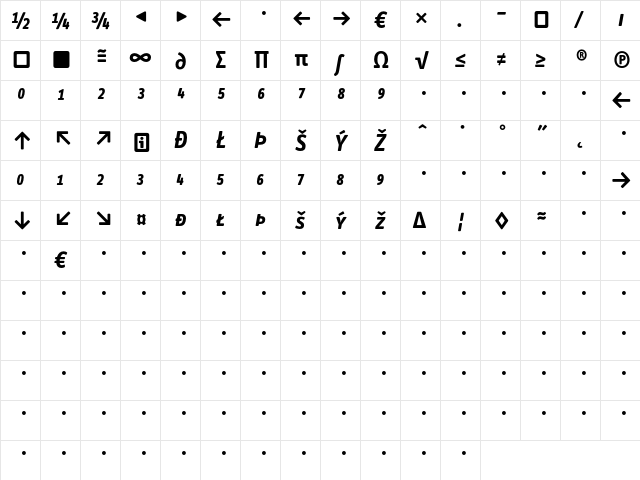
InfoTextBold CapsItaExp Font Preview
InfoTextBold CapsItaExp
InfoTextBold CapsItaExp Font Details
Design Context for InfoTextBold Typeface
InfoTextBold offers clean, dependable letterforms without strong stylistic allegiance, making it a practical choice for designers who need flexibility. Its bold stroke weight gives it real presence on the page.
Pro Tip: Use InfoTextBold in both headline and body roles to test its range before committing to a single application.